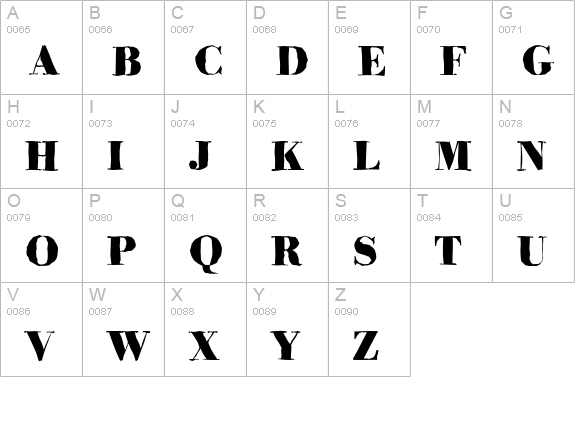
BodoniAntique-Heavy-Regular is a heavy, high-impact variant in the BodoniAntique typeface family \xE2\x80\x94 well suited to high-impact headlines, posters, and display advertising.
BodoniAntique-Heavy-Regular font is a timeless and elegant typeface that exudes sophistication and class. Its bold and distinctive design makes it perfect for headers, titles, and other attention-grabbing text in your projects. The sharp serifs and clean lines of BodoniAntique-Heavy-Regular font add a touch of luxury and refinement to any design. The best part is that BodoniAntique-Heavy-Regular font is available for free download at FontsMarket.com. This means you can easily access and use this stunning font in your personal and commercial projects without any cost. Don't miss out on the opportunity to elevate your designs with the beauty and versatility of BodoniAntique-Heavy-Regular font. Download it now and add a touch of elegance to your creations!